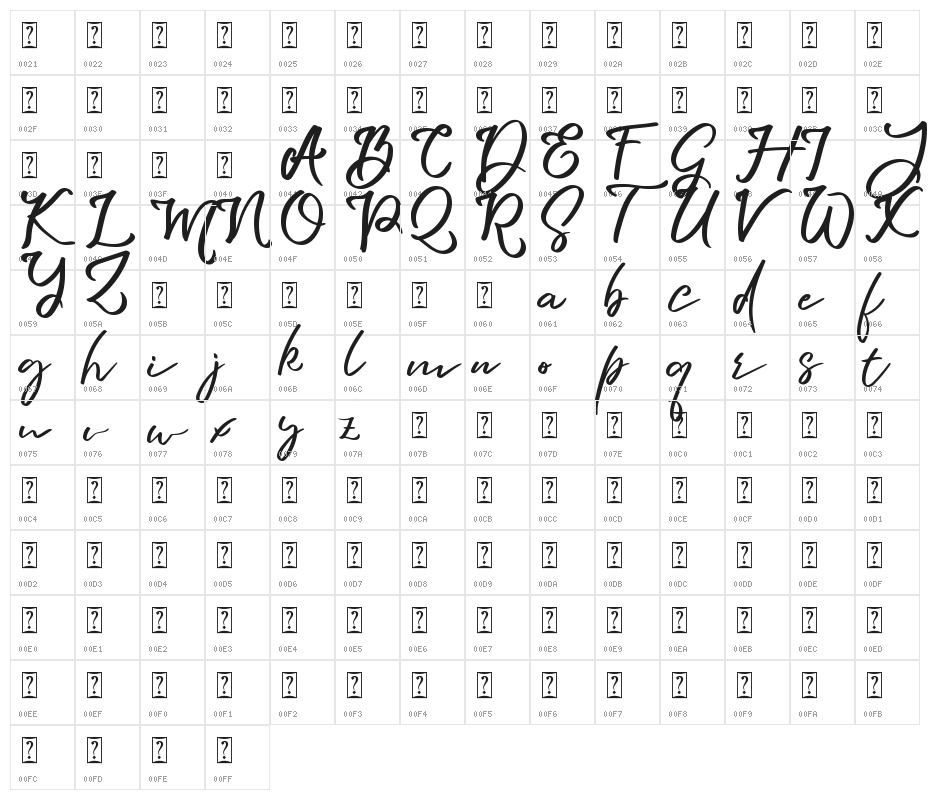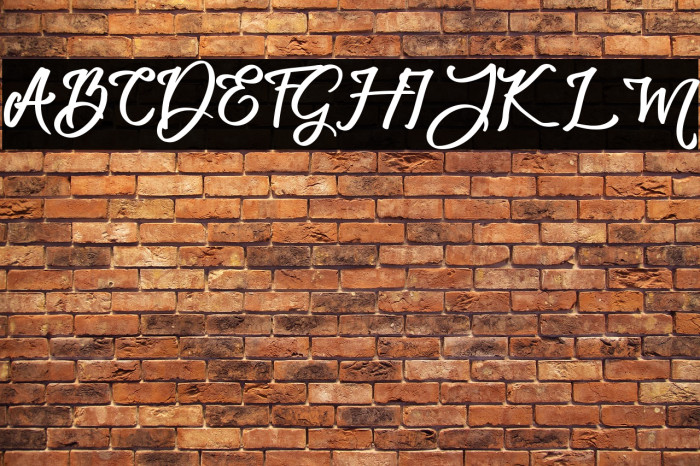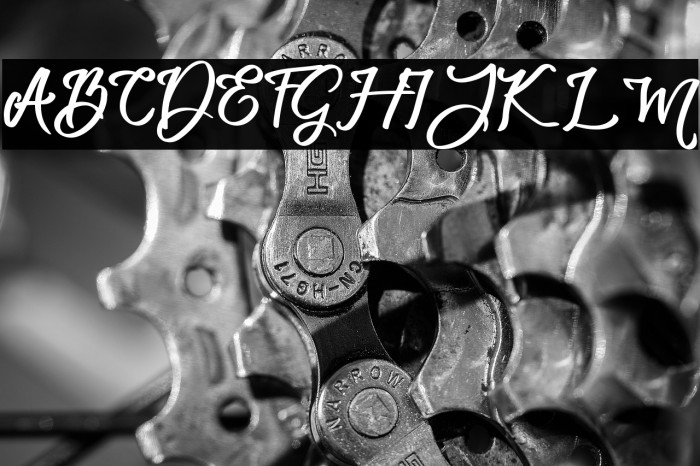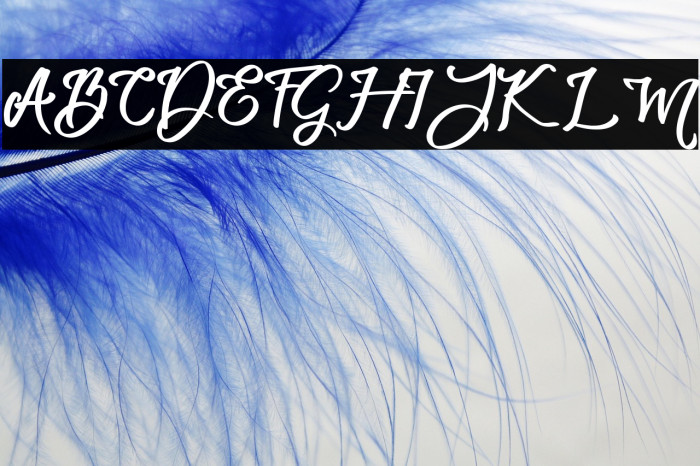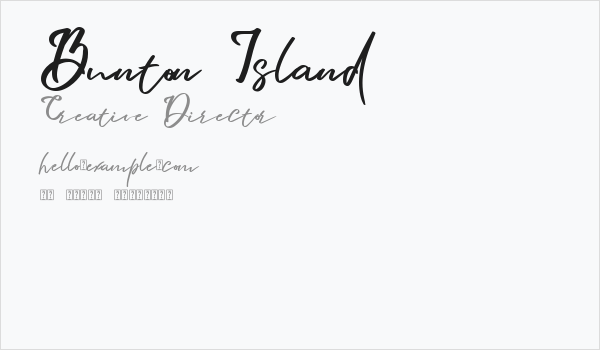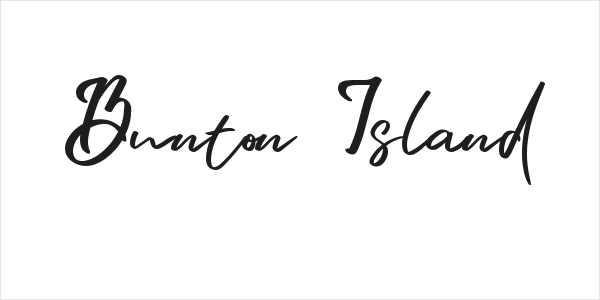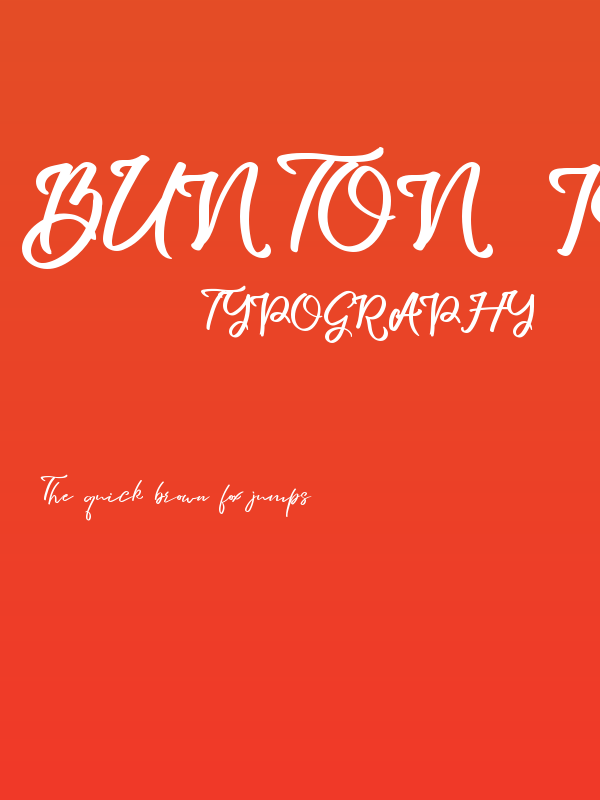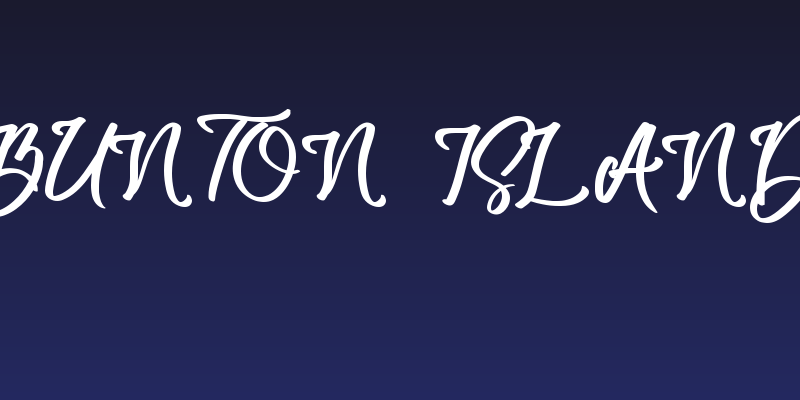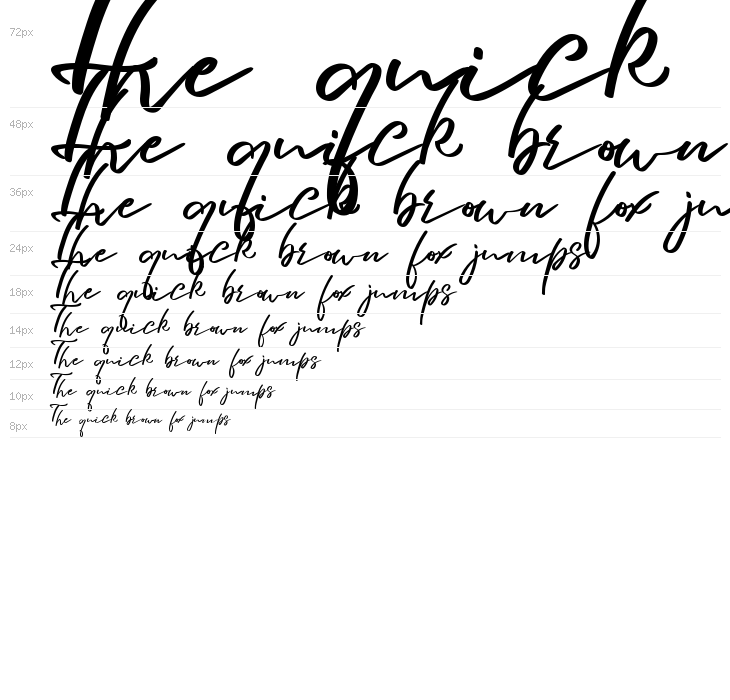
Bunton Island Font
Bunton Island Description
This font features an elegant and flowing script style, characterized by its smooth, cursive strokes and graceful curves. The uppercase letters exhibit a sophisticated flair with extended loops and swashes, while the lowercase letters maintain a consistent fluidity, enhancing readability. The font's design is reminiscent of traditional calligraphy, offering a sense of refinement and artistic expression. Its overall appearance is both decorative and functional, making it suitable for a variety of creative applications.